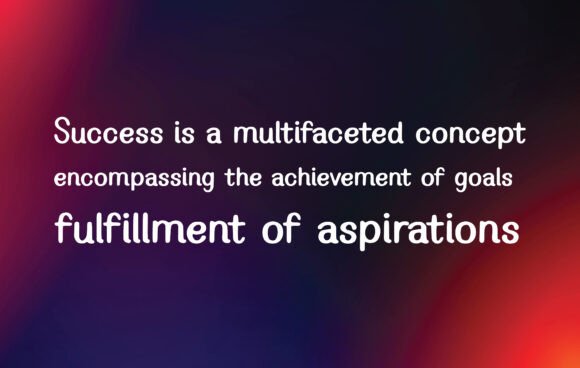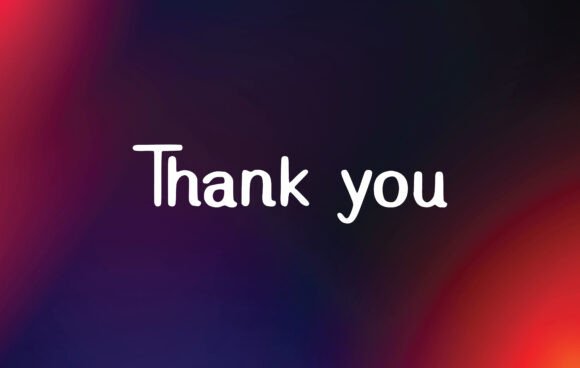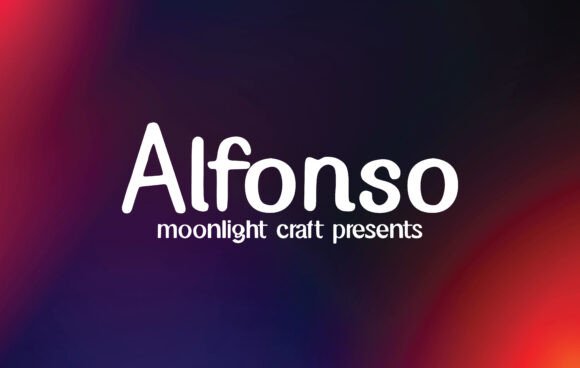
The Designer’s Delight: Alfonso Font
I still remember the frustration of working on a project, pouring my heart and soul into it, only to get stuck on one thing: finding the perfect font. It was as if my creative vision was held hostage by a sea of bland, generic typefaces. But then, I stumbled upon Alfonso Font, and it was like a breath of fresh air. This lovely, beautiful handwritten font has been a game-changer for me, and I’m excited to share its awesomeness with you! 😊
So, what makes Alfonso Font so special? Let’s dive into the good stuff and, of course, a few quirks. 😉
• ✨ Unique, elegant handwriting style that’s perfect for creative projects
• 🎨 Versatile and adaptable for various design applications, from logos to quotes
• 💫 Beautifully crafted to add a touch of sophistication to any design
While Alfonso Font is an amazing addition to any design project, there are a few things to keep in mind:
• ⚠️ May not be the best choice for very long blocks of text, as it’s designed for headlines and titles
• 🤔 Limited availability of certain OpenType features, which might be a consideration for some designers
The Designer Behind Alfonso Font
While the origins of Alfonso Font are shrouded in mystery, it’s said that the designer was inspired by the classic typography of the early 20th century. With a passion for handwriting and lettering, the designer aimed to create a font that would bring a touch of elegance and sophistication to any design project.
What makes Alfonso Font unique? Alfonso Font boasts a distinctive, elegant handwriting style that’s perfect for creative projects.
Is Alfonso Font suitable for body text? While Alfonso Font is highly legible, it’s designed for headlines and titles. For longer blocks of text, consider using a more traditional serif or sans-serif font.